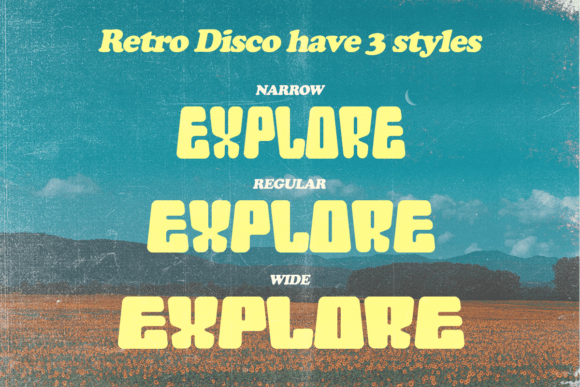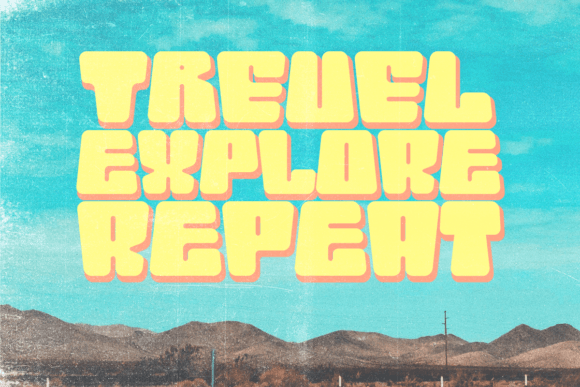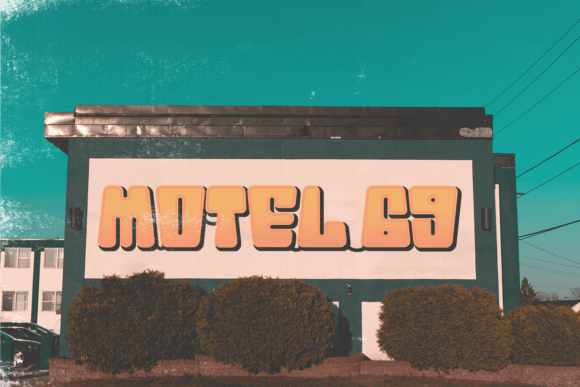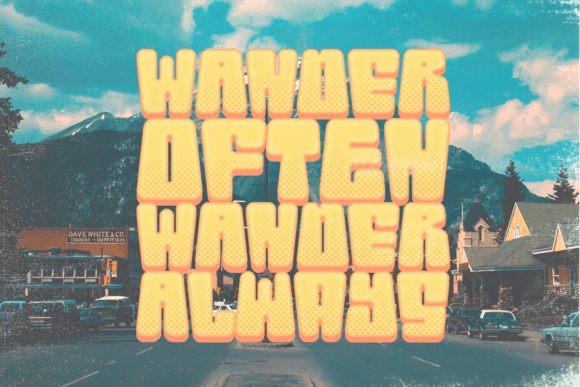
Retro Disco Font
Get ready to groove with our latest creation, RETRO DISCO font!
RETRO DISCO brings the perfect blend of quirky boldness and unique letterforms, adding a dash of playfulness to your designs.
With RETRO DISCO, the fun doesn’t stop! You can easily play around with its uppercase and lowercase modes to find the perfect fit for any form you desire.
Join the party and let RETRO DISCO be the life of your design projects. Embrace the groovy vibes and create something truly unforgettable!